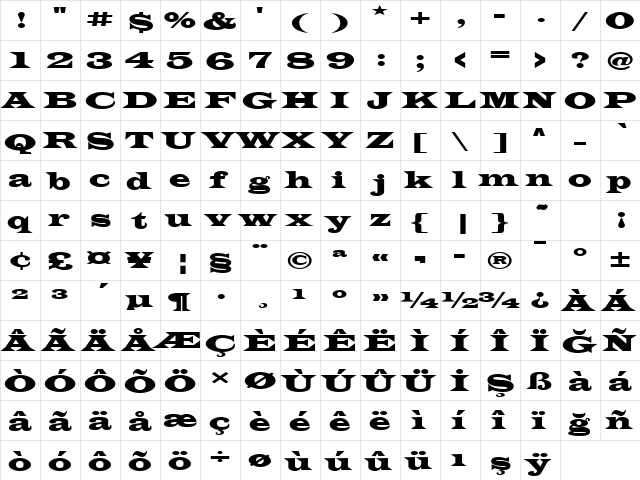
00435 Regular
Design Context for 00435 Typeface
00435 offers clean, dependable letterforms without strong stylistic allegiance, making it a practical choice for designers who need flexibility.